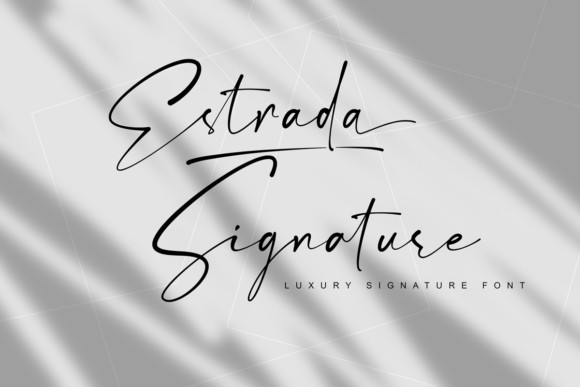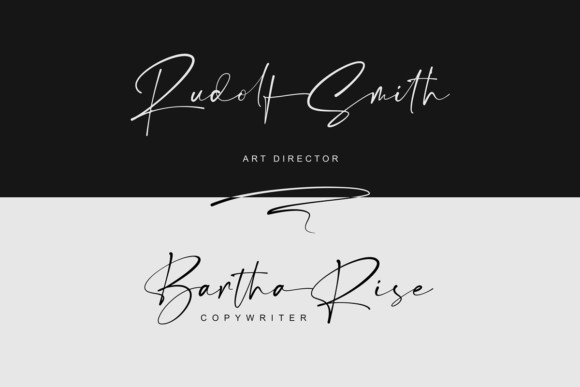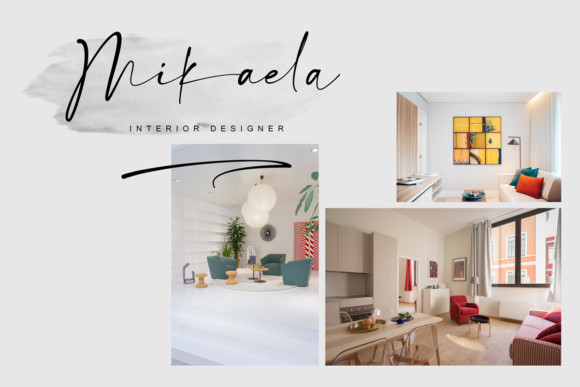
Estrada Signature Font
Estrada Signature is a luxurious handwritten font. Fall in love with its incredibly distinct and timeless style and use it to create spectacular designs!